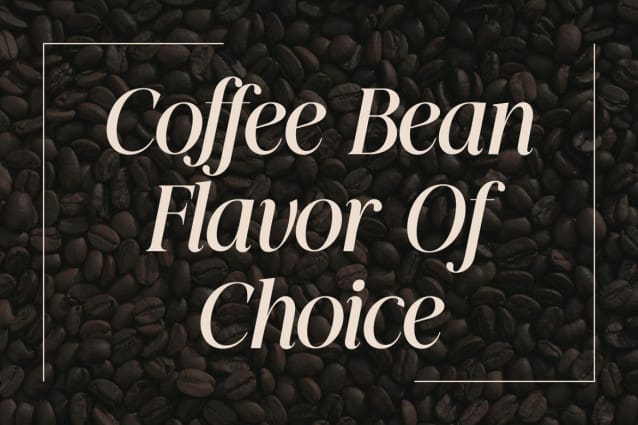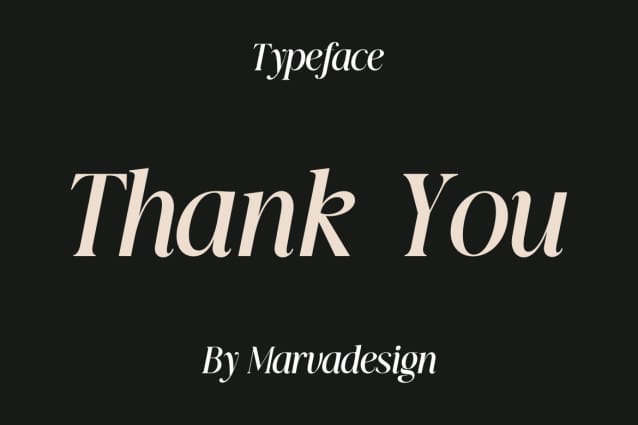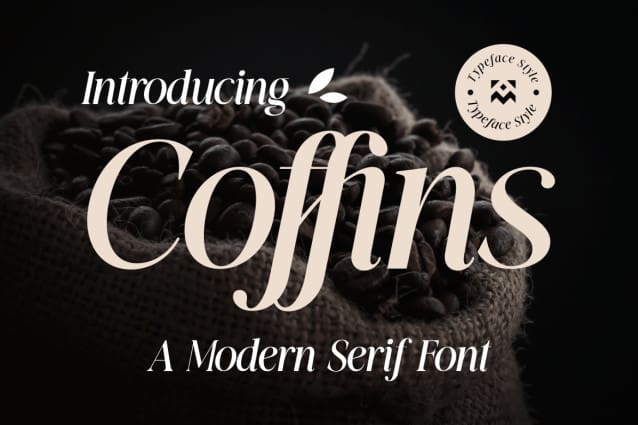
The coffins Font
The coffins Font – Modern Font is a bold and authentic display font. The font is suitable for all branding projects such as logo, t-shirt printing, products and many more. It stands out in a wide range of contexts.